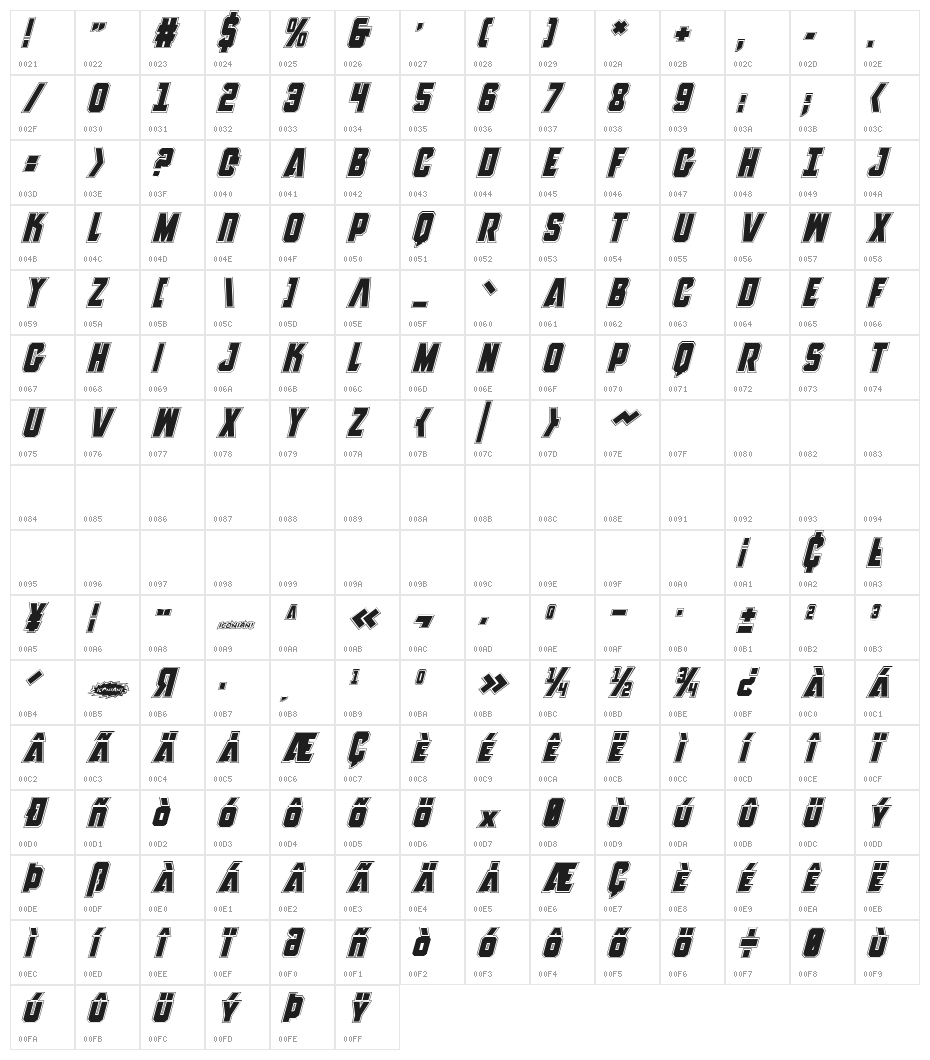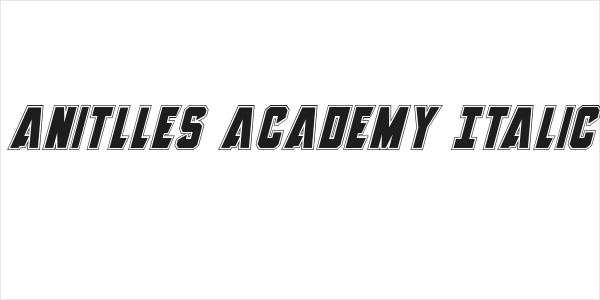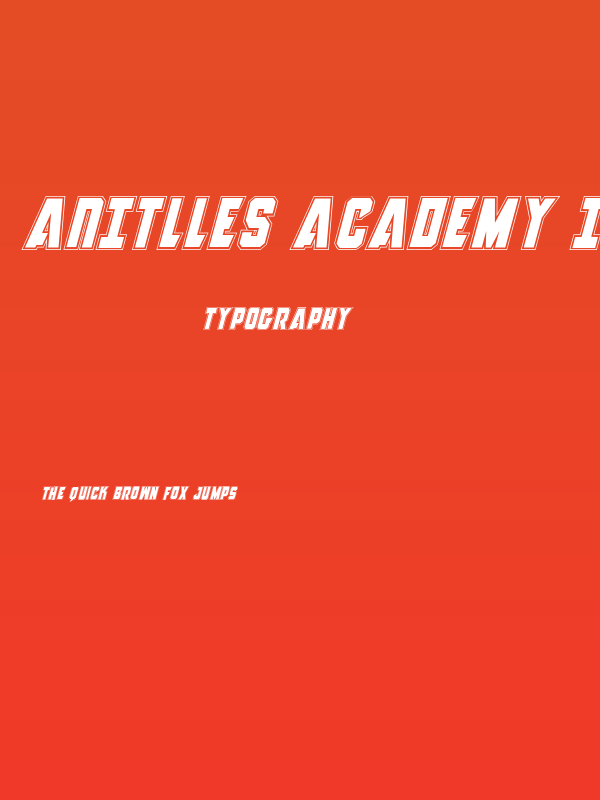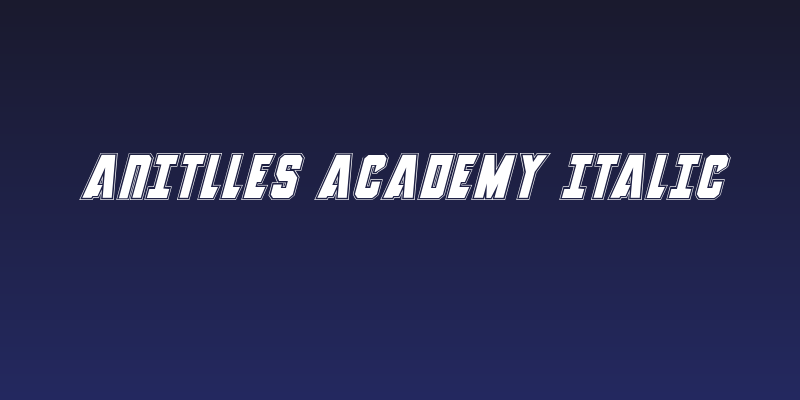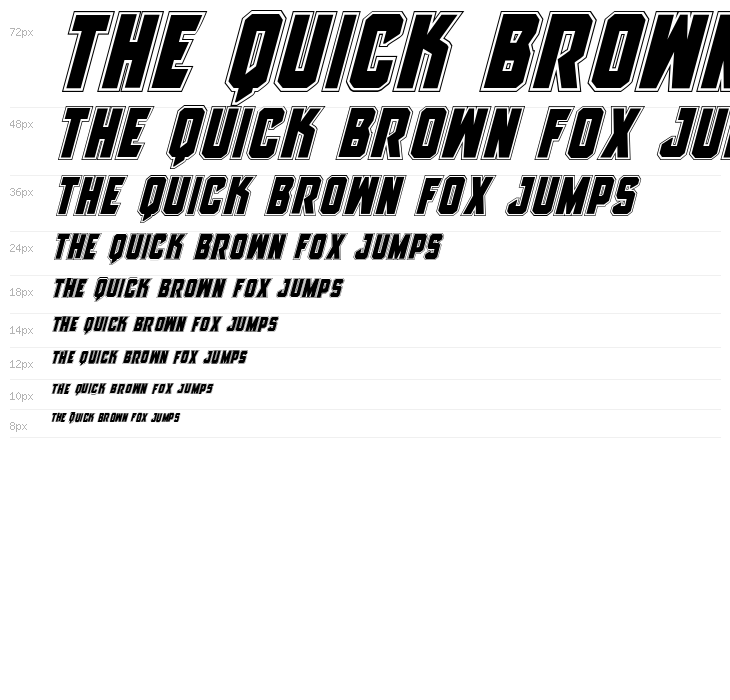
Anitlles Academy Italic Font
Anitlles Academy Italic Description
This font features a bold, italicized style with a strong, dynamic presence. The characters are outlined with a thick black border, giving them a three-dimensional effect. The angular design and sharp edges convey a sense of movement and energy, making it ideal for attention-grabbing headlines or impactful logos. The uppercase and lowercase letters maintain a consistent style, with the numbers and special characters following suit. The overall look is modern and assertive, suitable for projects that require a bold statement.
| Proposed Projects | Ideal for sports branding, dynamic posters, video game titles, and impactful advertising campaigns. |